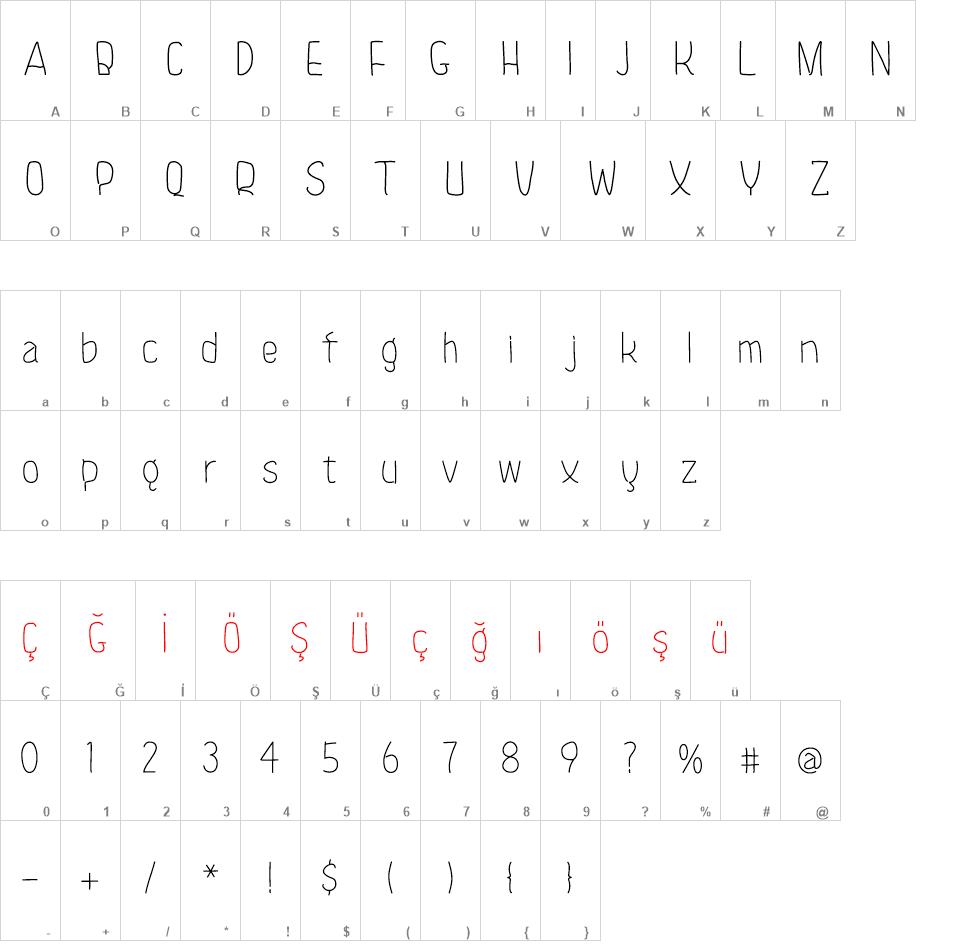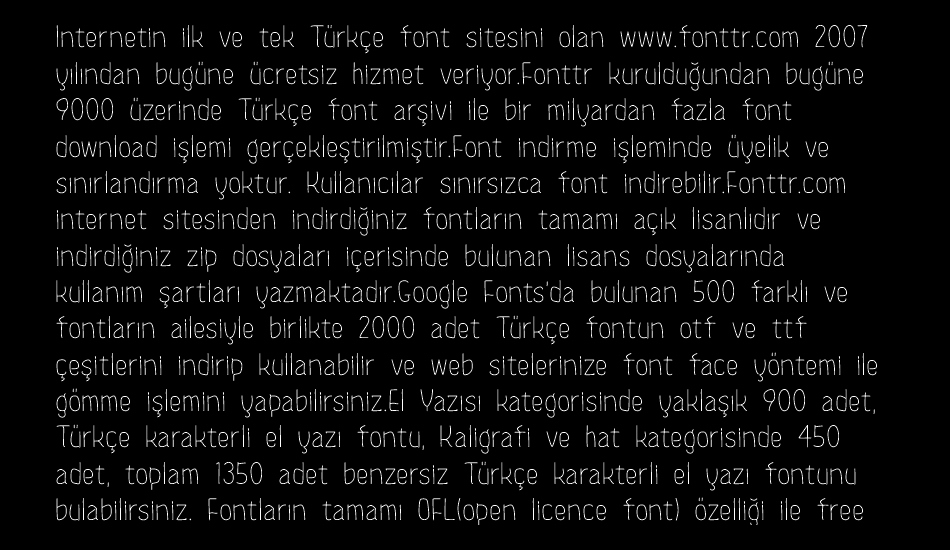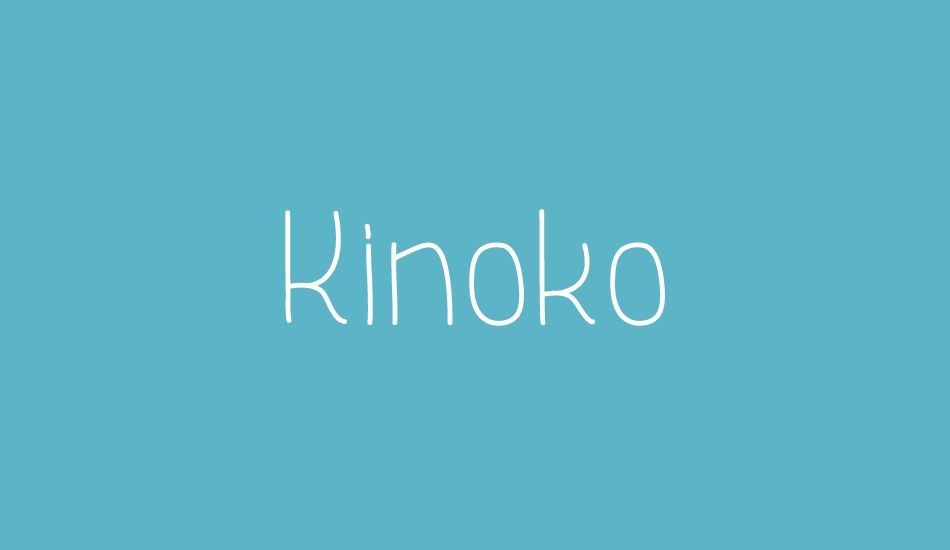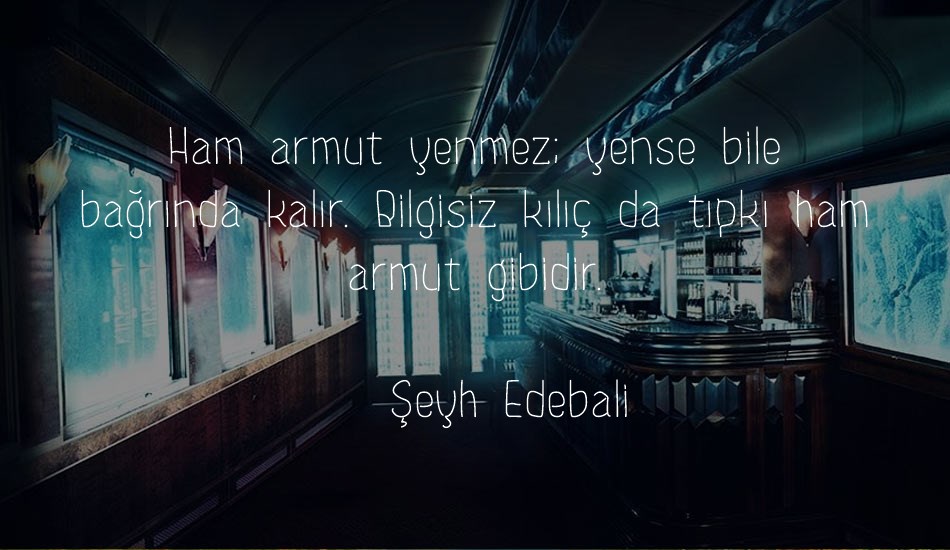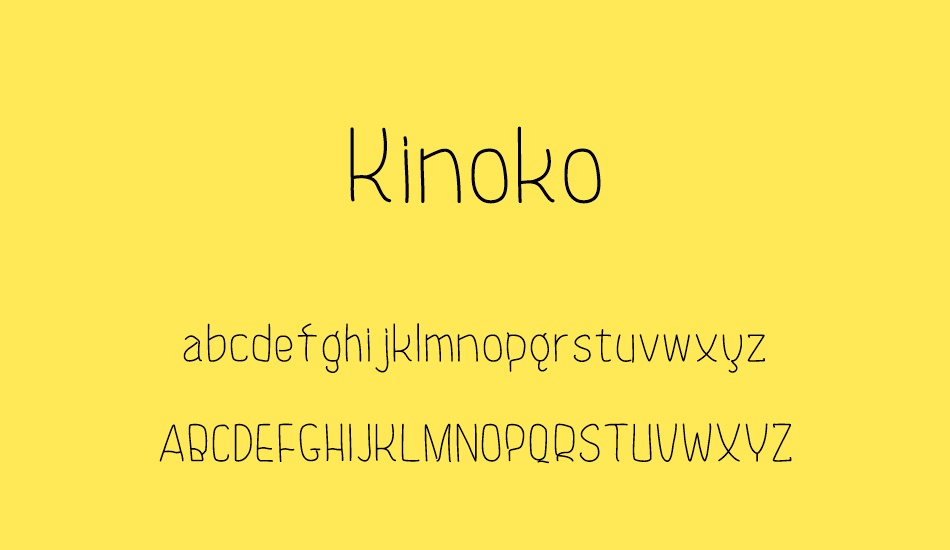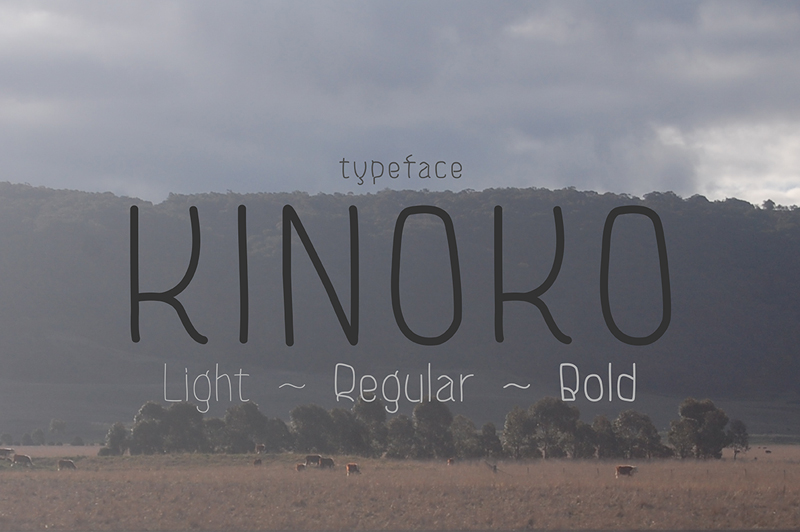
Kinoko font
Kinoko à € by Motoki Higa
KINOKO is very chilled, friendly and organic looking handwritten typeface contained unique shapes like " B ", " R ", and goes on, yet it's not too much.
It's coming with another 2 weights ( LIGHT and BOLD ),
337 glyphs, 55 languages support and kerning.